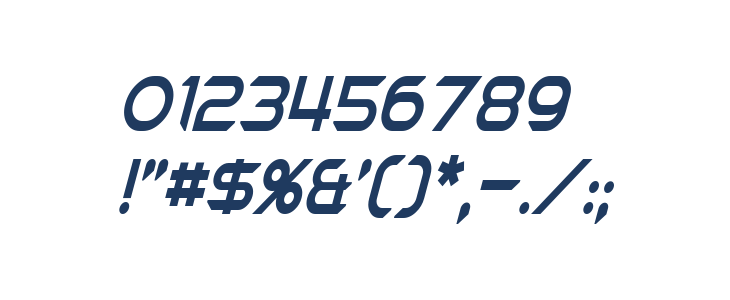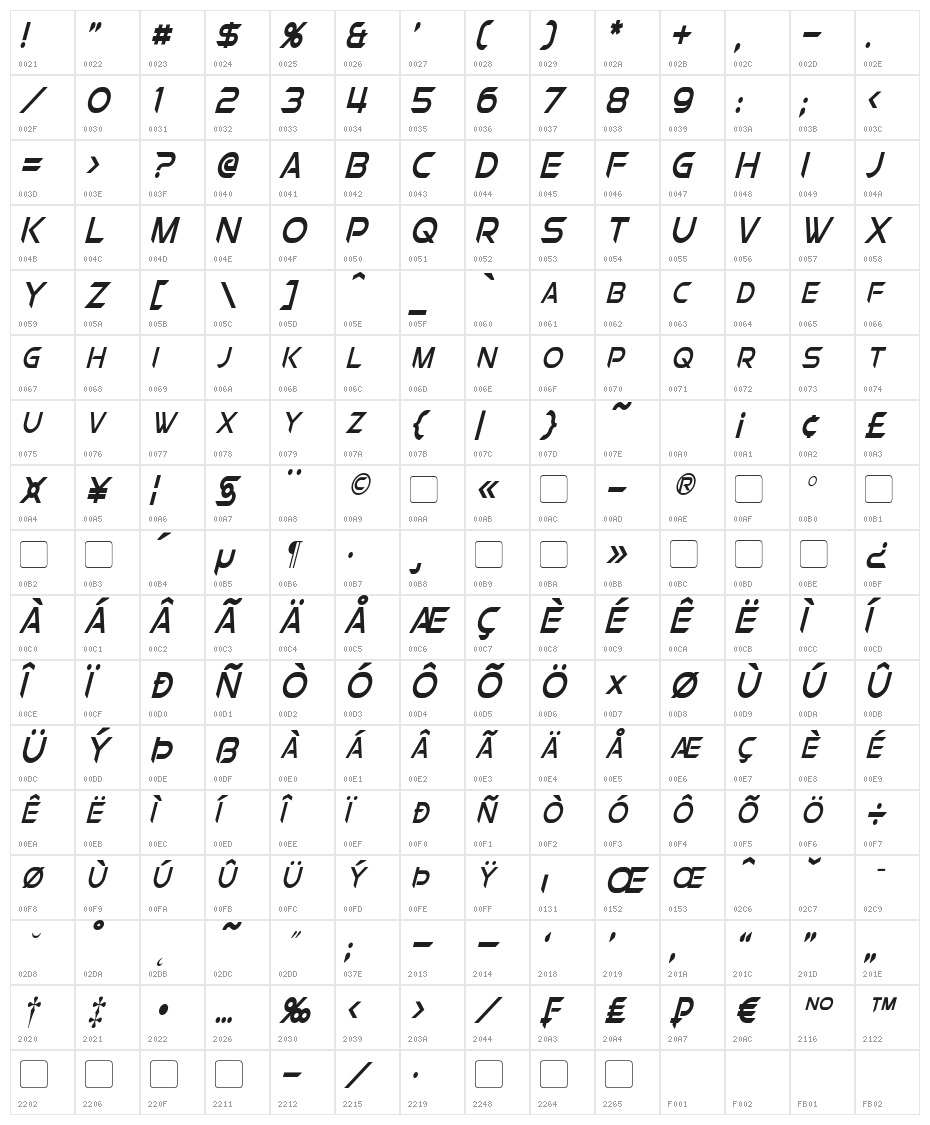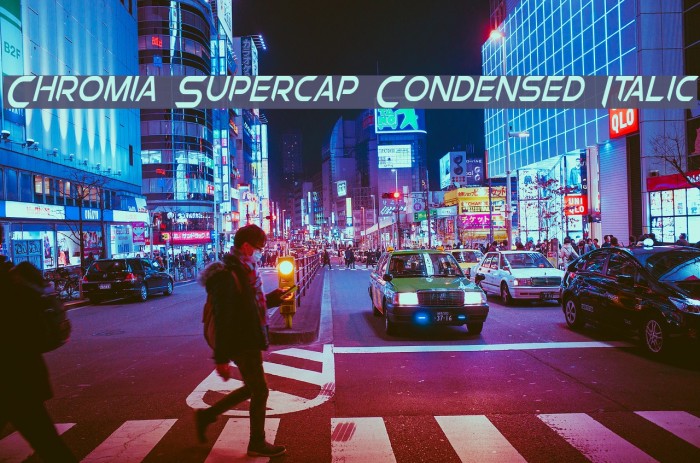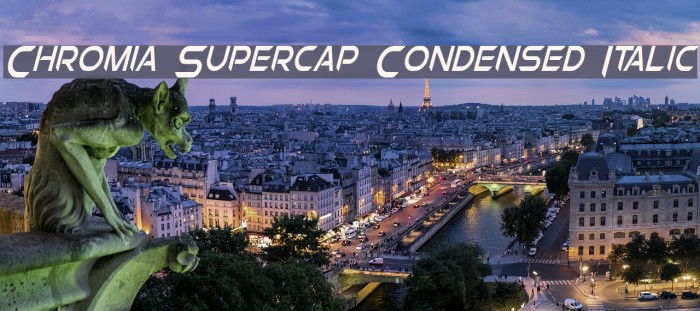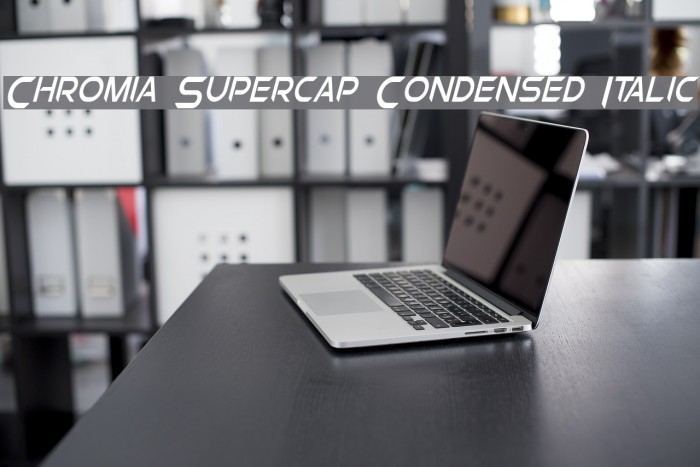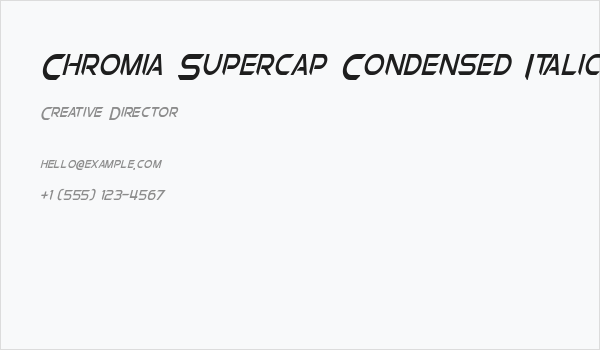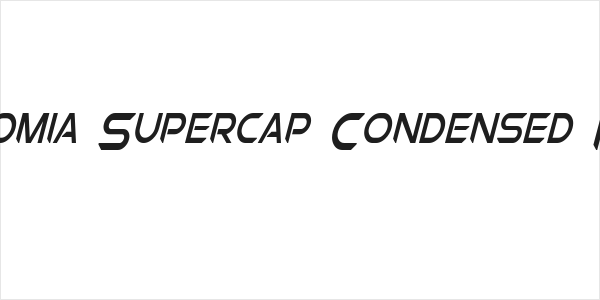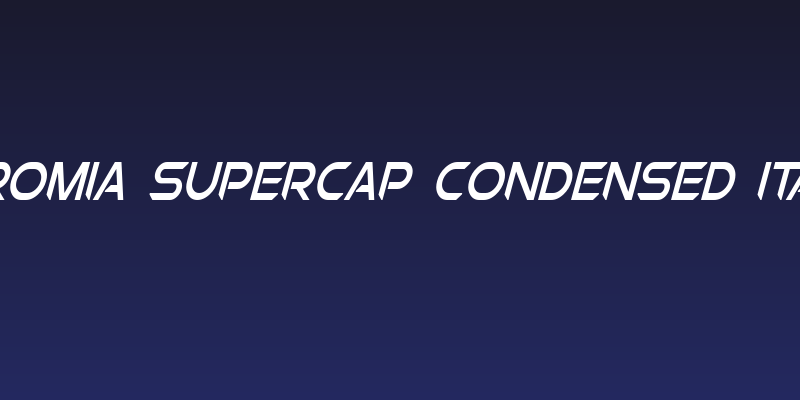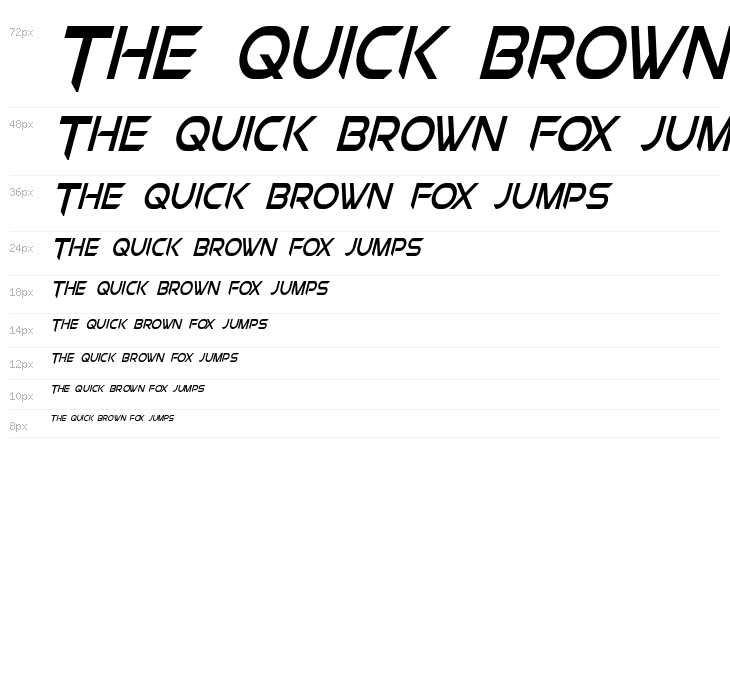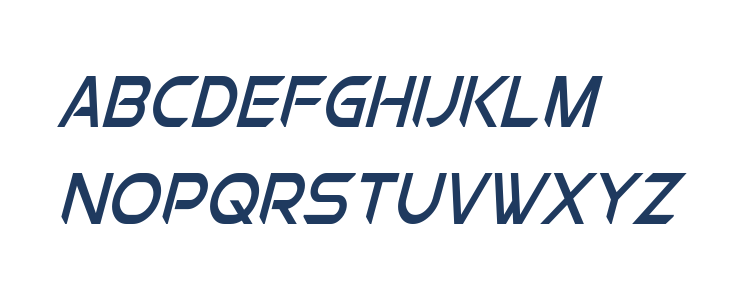
Chromia Supercap Condensed Italic Font
Chromia Supercap Condensed Italic Description
This font exhibits a sleek, modern aesthetic with a condensed and italicized form, giving it a dynamic and forward-leaning appearance. The characters are sharply defined with angular cuts, providing a sense of speed and efficiency. The uppercase and lowercase letters maintain a consistent style, with a slight slant that enhances the italic effect. The numerals are bold and clear, ensuring readability. Special characters are designed with the same angular precision, making them stand out. The overall design is highly suitable for projects that require a futuristic or high-tech look, such as branding for technology companies, automotive industries, or sports-related materials.